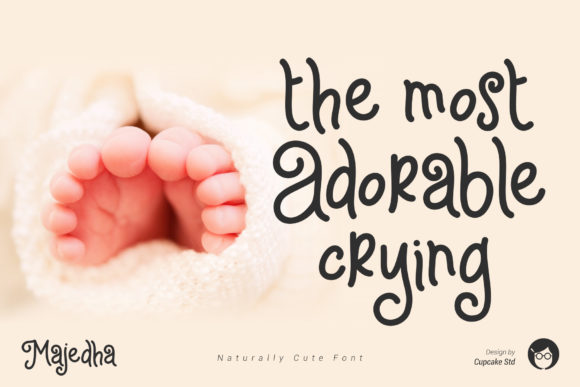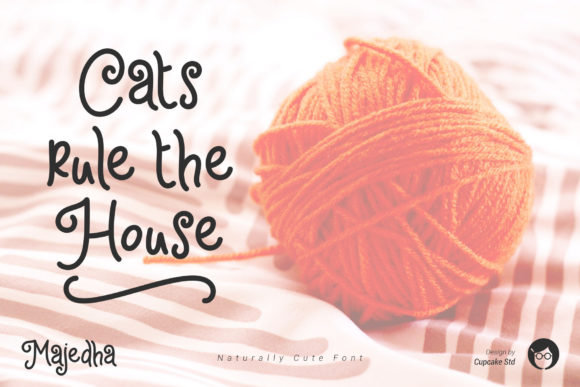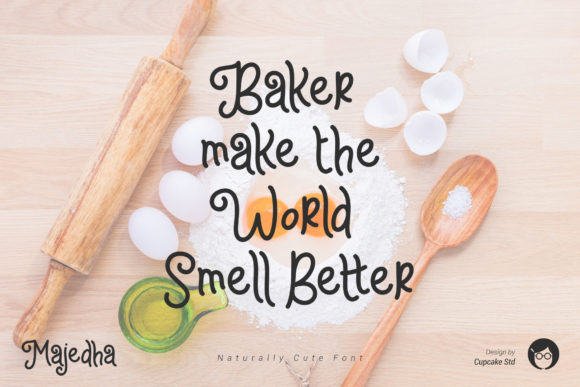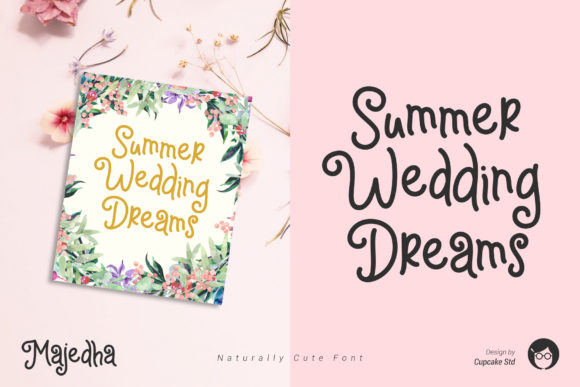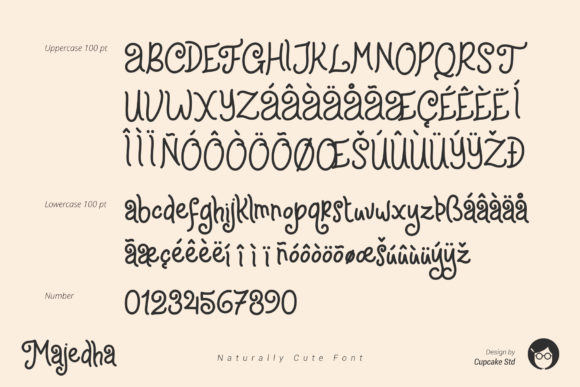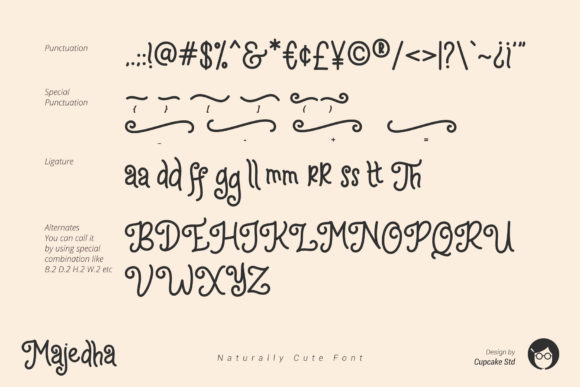
Introducing AL Majedha Font: Elevate Your Designs with Elegance
In the world of design, typography plays a crucial role in conveying the message and aesthetic of a project. A font can make or break the visual appeal of a design, and that’s where AL Majedha Font comes in. This magical display font is carefully crafted with a touch of elegance, making it the perfect addition to a wide range of design projects.
What is AL Majedha Font?
AL Majedha Font is a display font designed to add a touch of sophistication and glamour to any design project. Its unique and elegant style makes it an excellent choice for designers and crafters looking to elevate their work to the highest level. Whether you’re working on branding, headings, wedding designs, invitations, signatures, logos, labels, or any other project, AL Majedha Font is the perfect fit.
Key Features of AL Majedha Font
- Elegant Design: AL Majedha Font boasts an elegant design that exudes sophistication and glamour.
- Magical Touch: The font has a magical touch that sets it apart from other display fonts.
- Versatile: AL Majedha Font is versatile and can be used in a wide range of design projects.
- High-Quality: The font is carefully crafted to ensure high-quality output.
Use Cases for AL Majedha Font
AL Majedha Font is perfect for a variety of design projects, including:
- Branding: Use AL Majedha Font to create stunning brand logos and marketing materials.
- Wedding Designs: Add a touch of elegance to wedding invitations, cards, and decorations.
- Invitations: Create beautiful and eye-catching invitations for parties, events, and more.
- Signatures: Use AL Majedha Font to create elegant signatures for business or personal use.
- Logos: Design stunning logos for businesses, products, or services.
- Labels: Create eye-catching labels for products, gifts, or other items.
Benefits of Using AL Majedha Font
By using AL Majedha Font, designers and crafters can enjoy several benefits, including:
- Unique Designs: AL Majedha Font helps create unique and eye-catching designs that stand out from the crowd.
- Elegance and Sophistication: The font adds a touch of elegance and sophistication to any design project.
- Time-Saving: AL Majedha Font is easy to use and saves time in the design process.
- High-Quality Output: The font ensures high-quality output that meets professional standards.
Tips for Using AL Majedha Font
To get the most out of AL Majedha Font, here are some tips:
- Experiment with Sizes: Try different font sizes to create visual interest and hierarchy.
- Pair with Other Fonts: Pair AL Majedha Font with other fonts to create a unique and harmonious design.
- Use on Different Backgrounds: Experiment with different backgrounds to create stunning contrast and visual appeal.
| Font Name | AL Majedha Font |
| Author | TheSundoro |